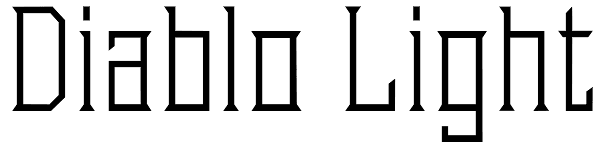
Diablo
Diablo Light was originally called Fabric and was issued by the Farmer, Little & Co. foundry in New York. We liked everything about this font except for the lowercase 'g'. So we changed the offending letter, but for purity kept the orginal as an...
Diablo Bold
Diablo Light